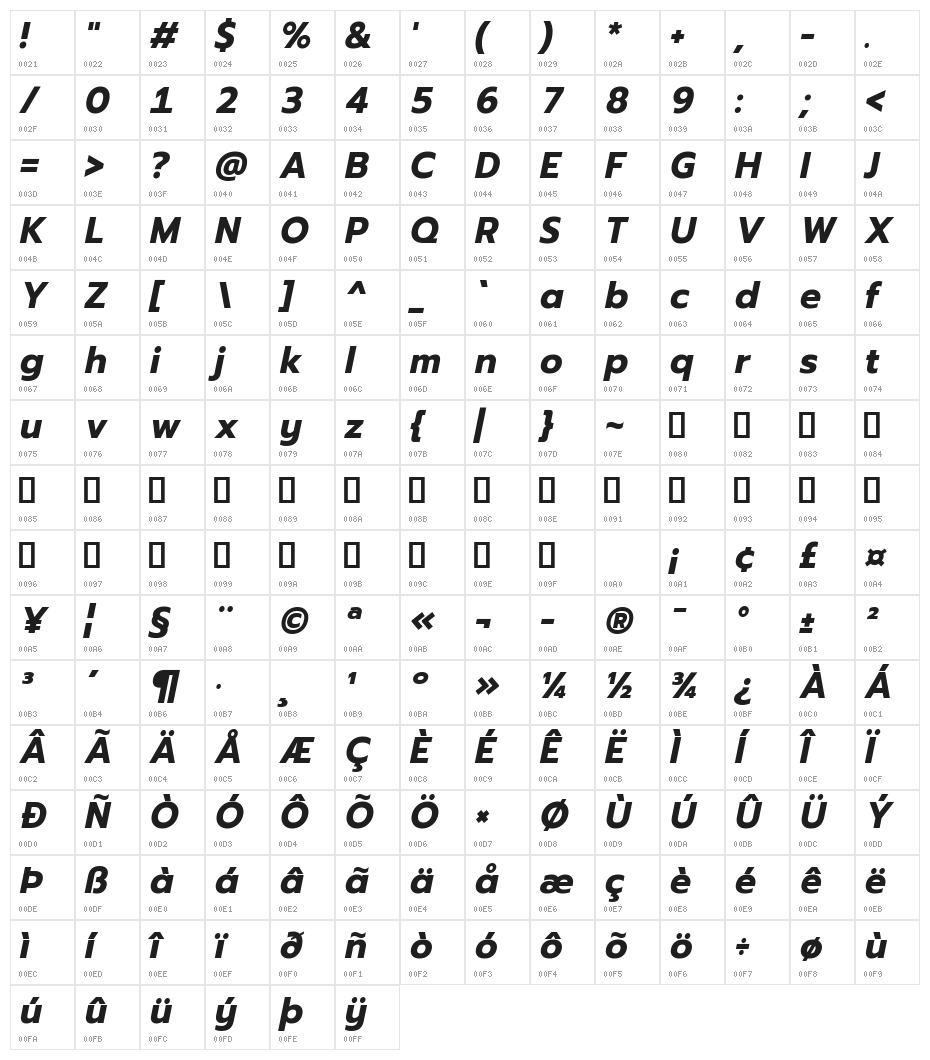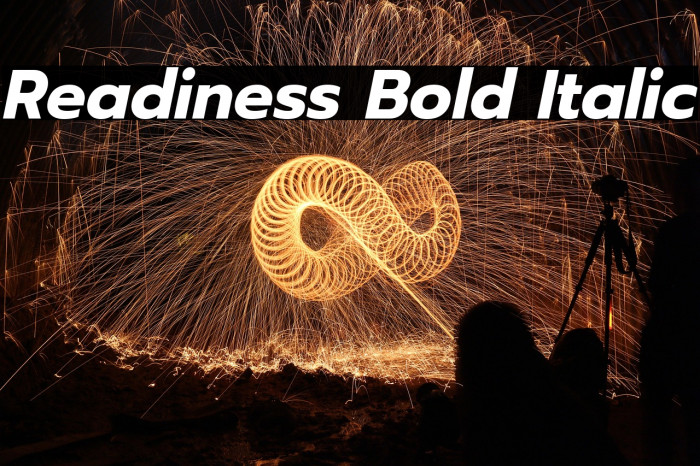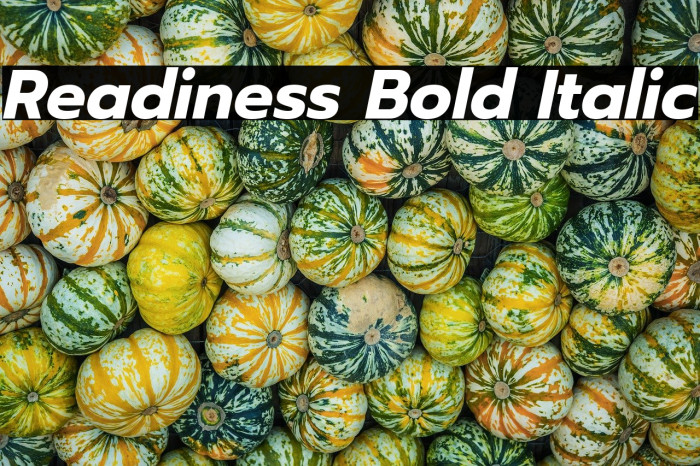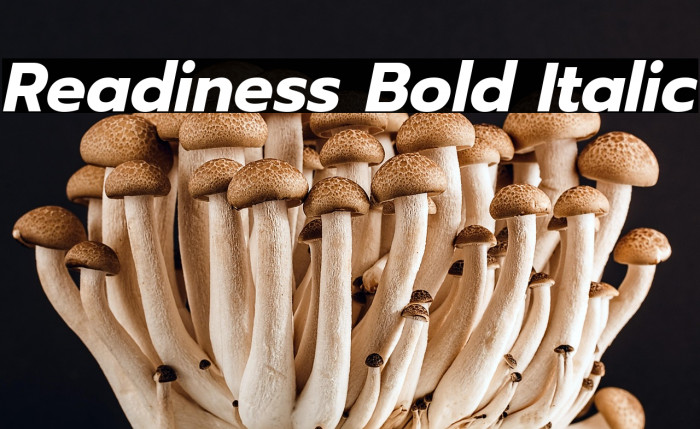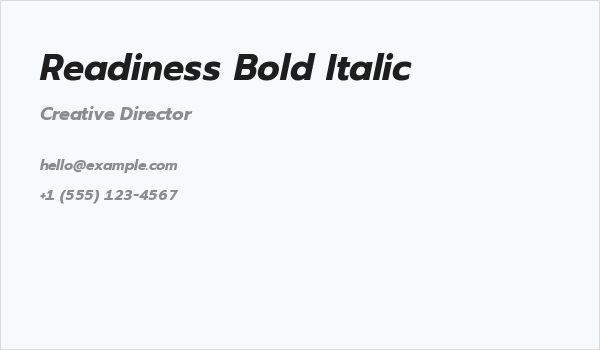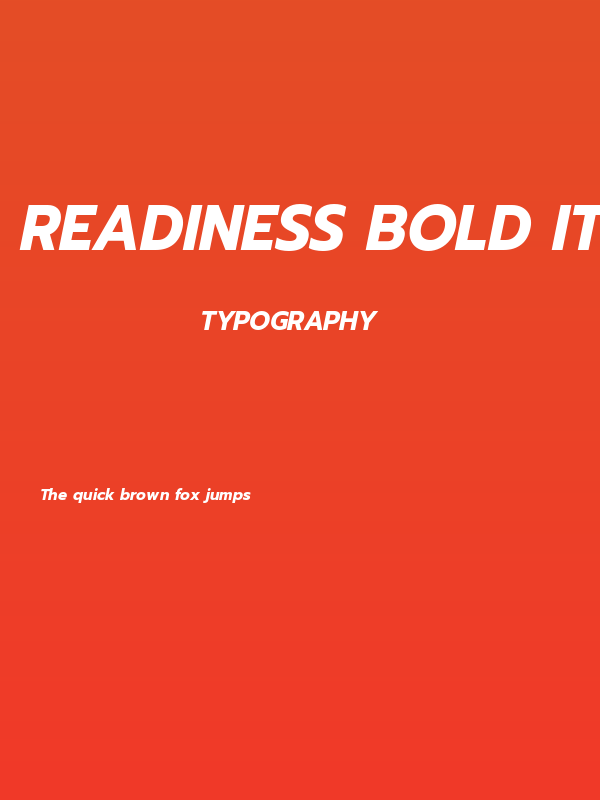
Readiness Bold Italic Font
Readiness Bold Italic Description
This typeface features a bold and italicized style, characterized by its strong and dynamic appearance. The letters are slightly slanted, adding a sense of movement and urgency. The strokes are thick and consistent, providing a robust and confident look. The font maintains a modern and clean aesthetic, making it suitable for contemporary designs. Its boldness ensures high readability, while the italic style adds a touch of elegance and sophistication. The numerals and special characters are designed to match the overall style, ensuring uniformity across all text elements.
| Use Case | Headlines, Logos, Advertising |
| Proposed Projects | Ideal for branding, advertising, headlines, and any project requiring a strong and modern typeface. |